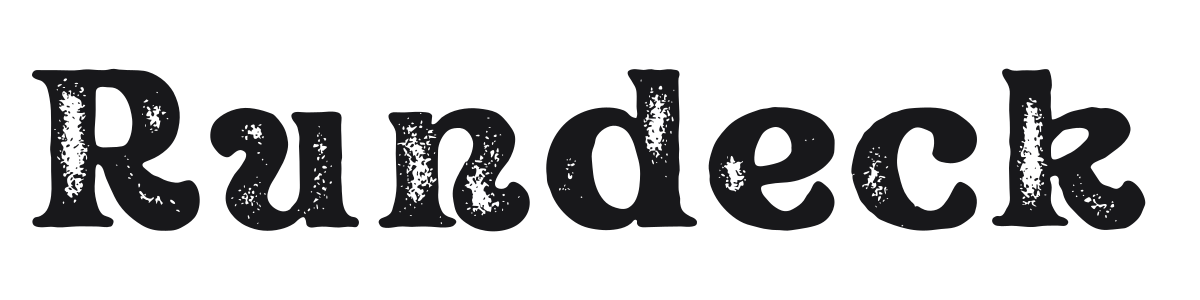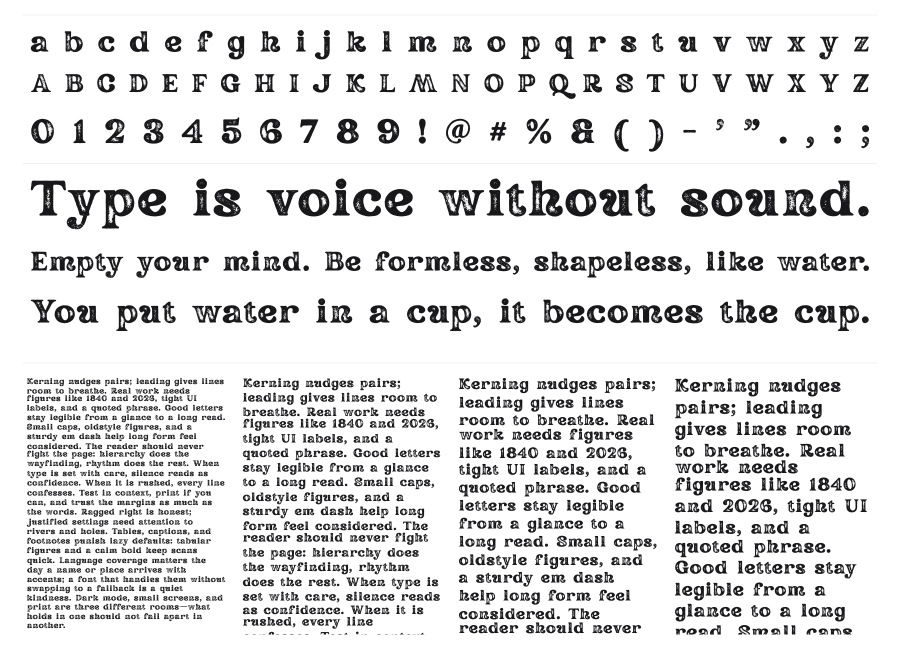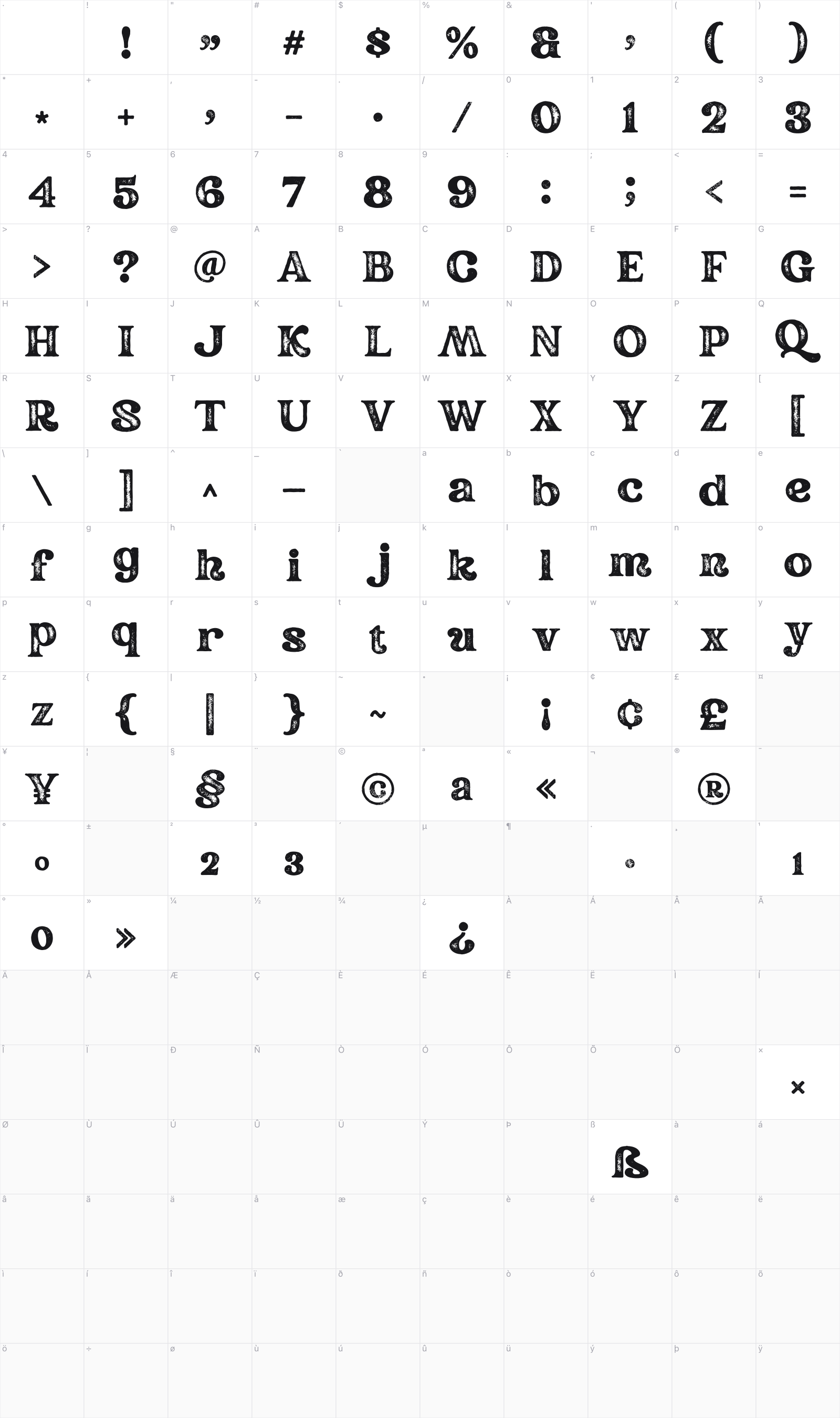
Rundeck
Rundeck is a heavy distressed serif with the look of ink-saturated letterpress type pulled from an antique press. The bold slab serifs and thick strokes carry a dense, worn texture that reads as authentically aged rather than digitally simulated. Strong choice for posters, craft labels, or any project that needs a vintage roughness with real visual weight.